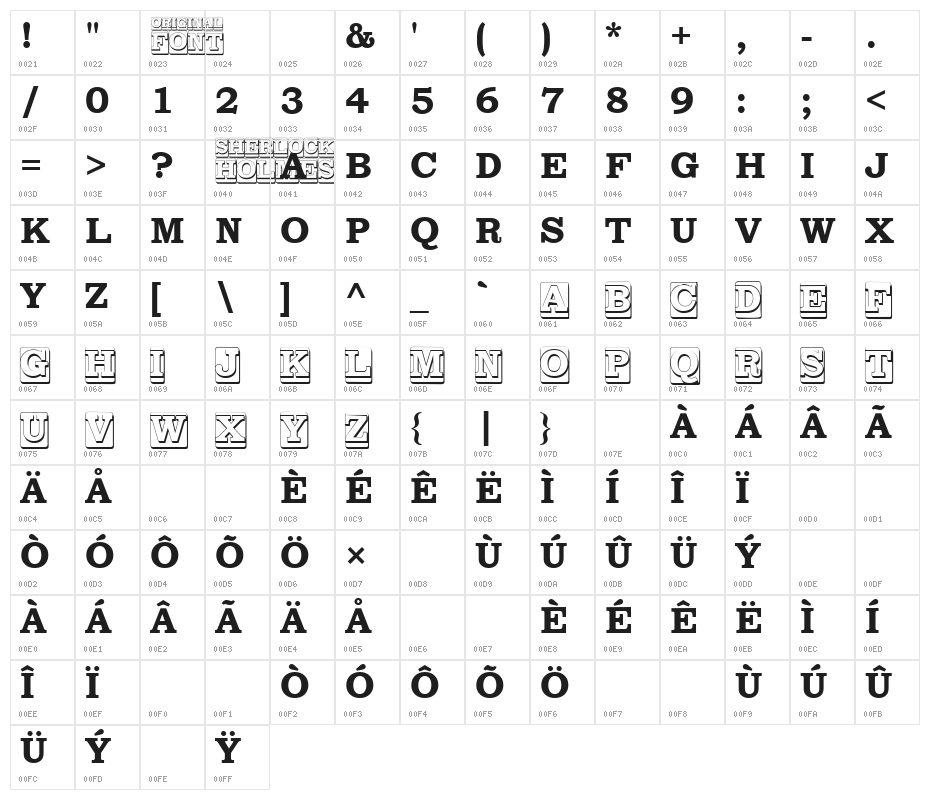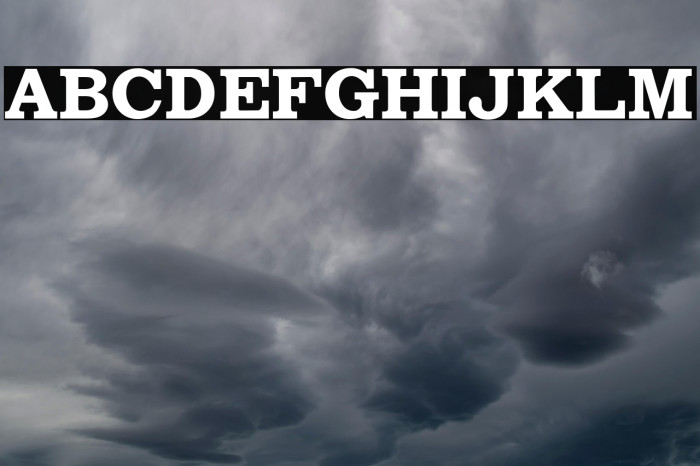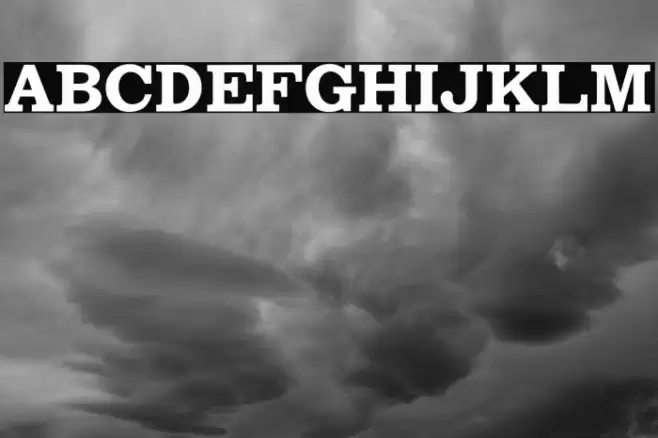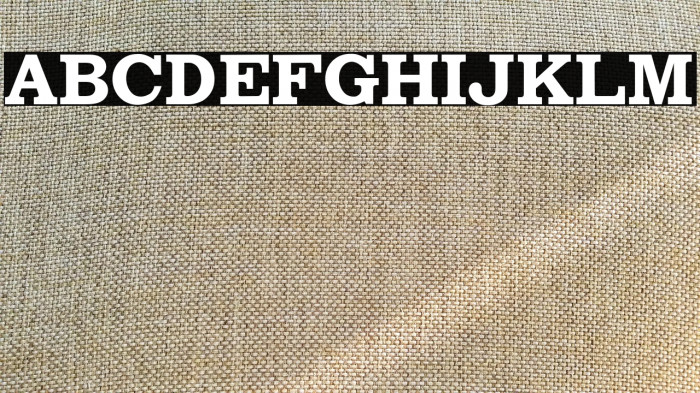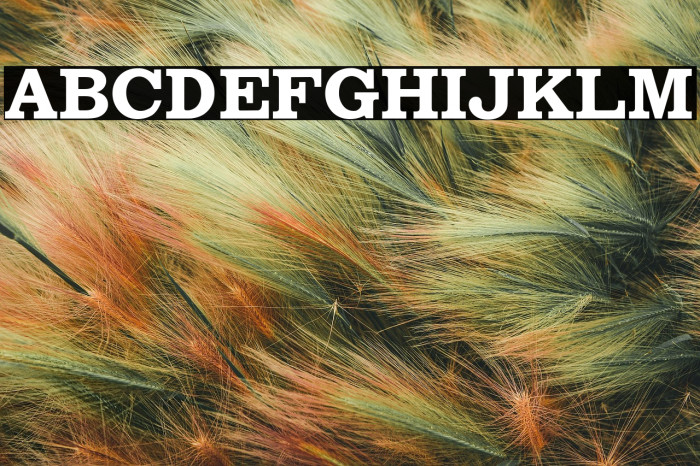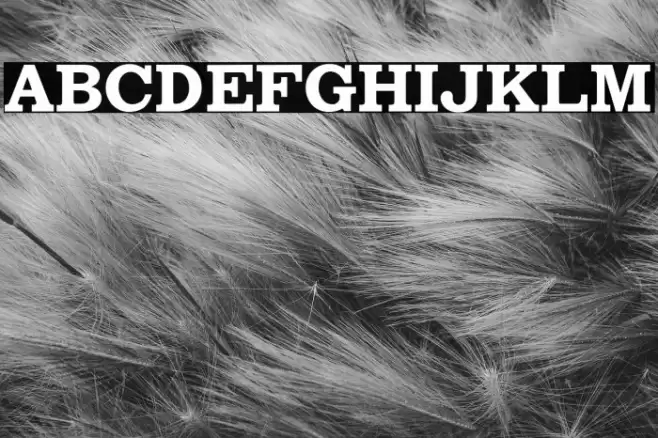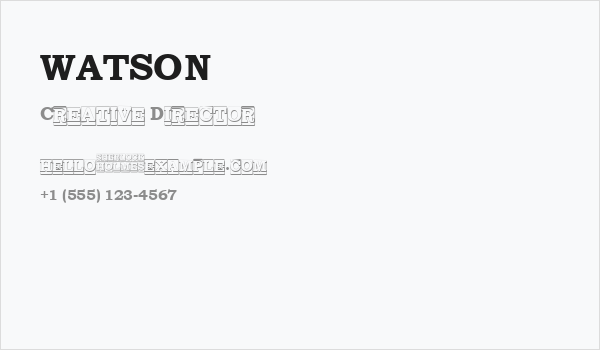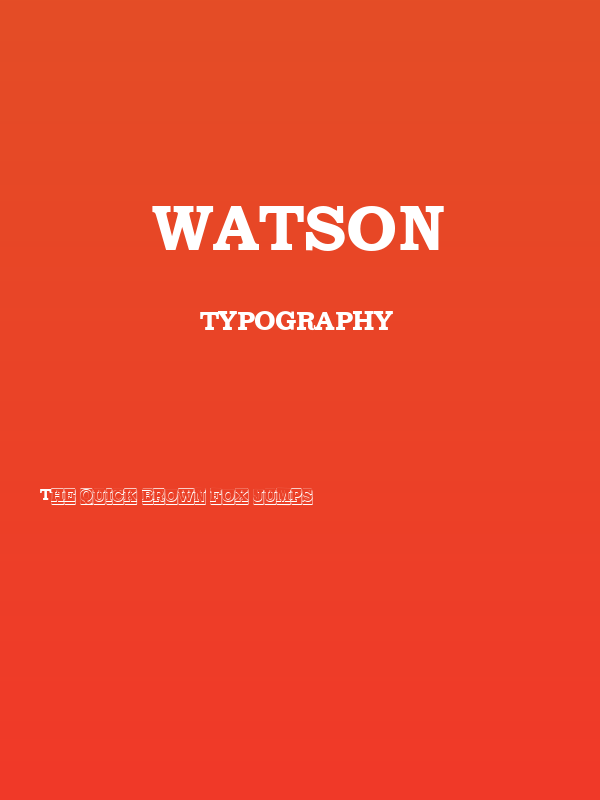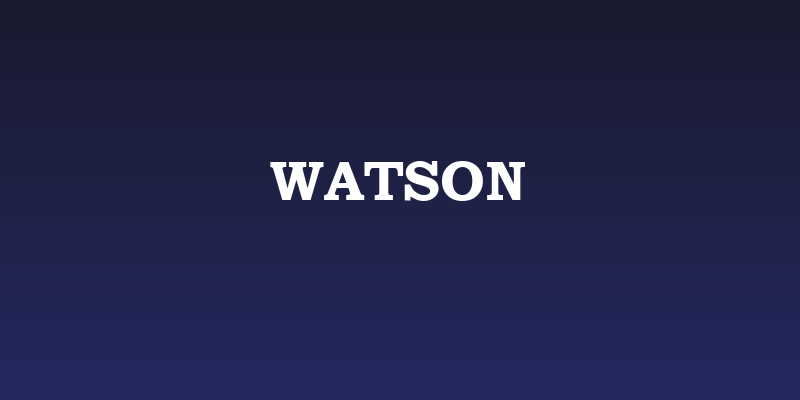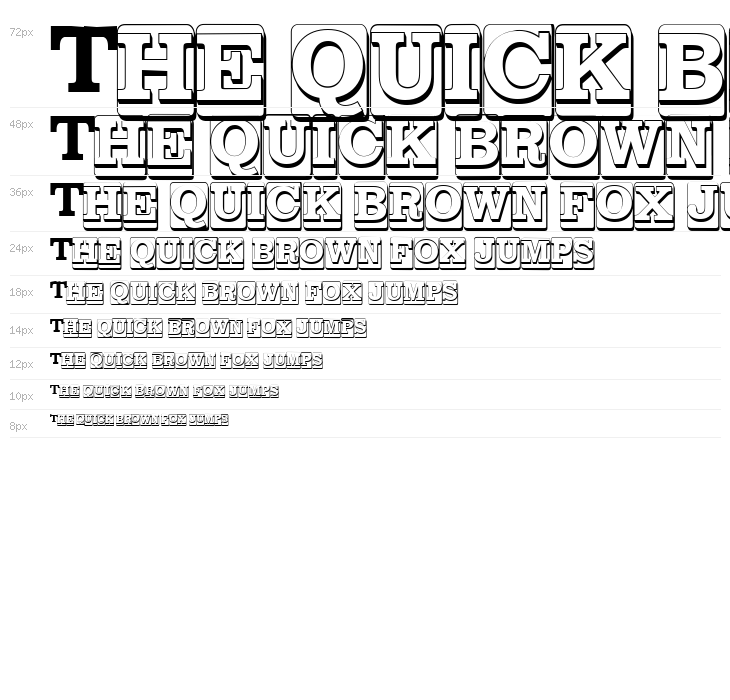
WATSON Font
WATSON Description
This font features a bold and impactful design with strong, thick strokes that convey a sense of authority and confidence. The uppercase letters are robust and commanding, while the lowercase letters maintain a consistent weight, ensuring readability. The numbers are equally bold, making them stand out prominently. Special characters are designed with the same boldness, ensuring uniformity across all glyphs. The font's style is reminiscent of classic serif typefaces, yet it incorporates modern elements that make it suitable for contemporary use. Its high contrast between thick and thin strokes adds to its legibility and visual appeal.